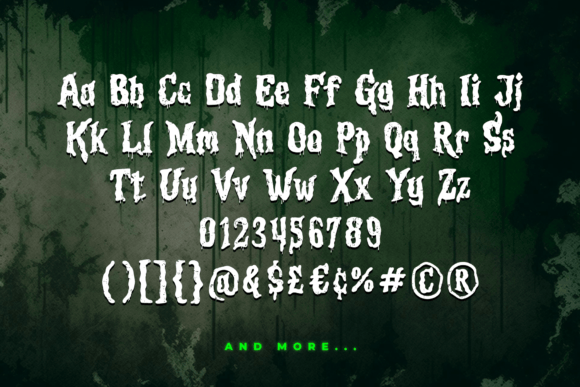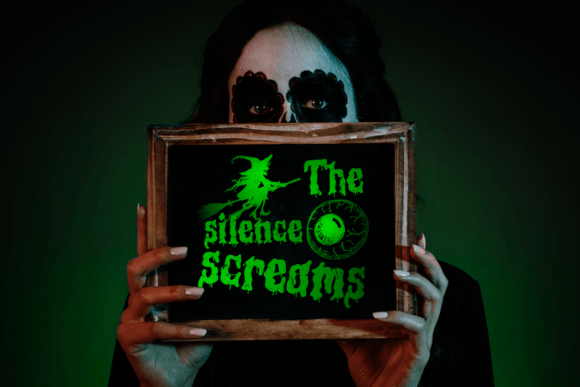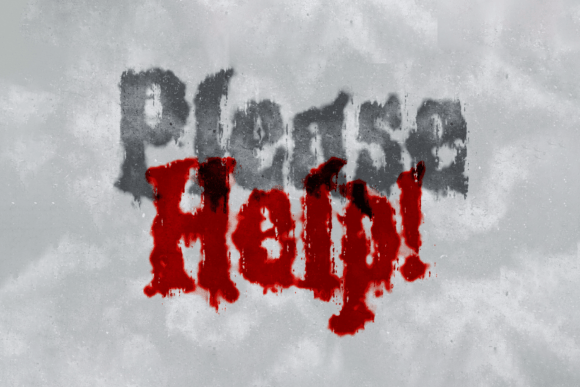
Introducing Gortem Font: The Ultimate Horror Experience for Designers and Crafters
Are you a designer or crafter looking for a font that will send shivers down the spine of your audience? Look no further than Gortem Font, a chilling handwritten font that is perfect for horror-themed designs. With its eerie, dripping letters, Gortem adds a haunting touch to your text that is sure to leave a lasting impression.
The Essence of Fear: What Makes Gortem Font So Unique?
Gortem Font captures the essence of fear with every stroke, making it an ideal choice for spooky invitations, mysterious signage, and bone-chilling Halloween projects. Each letter is carefully crafted to resemble dripping blood or a ghostly whisper, giving your text a haunting quality that is sure to terrify.
Whether you’re designing a haunted house invitation, a spooky flyer, or a creepy poster, Gortem Font is the perfect choice. Its unique and eerie style will add a level of terror to your design that will leave your audience shivering in fear.
Unleash the Terror: How to Use Gortem Font in Your Designs
Here are a few ideas for using Gortem Font in your designs:
- Create a spooky invitation for a Halloween party or haunted house event.
- Design a creepy poster for a horror movie or haunted attraction.
- Make a mysterious sign for a haunted location or spooky landmark.
- Develop a bone-chilling logo for a horror-themed business or product.
The Benefits of Using Gortem Font in Your Designs
There are many benefits to using Gortem Font in your designs. Here are a few:
- Unique and eye-catching: Gortem Font is a one-of-a-kind font that will add a unique and eye-catching element to your designs.
- Perfect for horror-themed designs: Gortem Font is specifically designed for horror-themed designs, making it the perfect choice for spooky invitations, creepy posters, and haunted house signs.
- High-quality: Gortem Font is a high-quality font that is designed to look great in a variety of sizes and resolutions.
Tips and Tricks for Getting the Most Out of Gortem Font
Here are a few tips and tricks for getting the most out of Gortem Font:
- Experiment with different colors: Gortem Font looks great in a variety of colors, from blood red to ghostly white. Experiment with different colors to find the one that works best for your design.
- Use it sparingly: Gortem Font is a bold and eye-catching font, so use it sparingly to add emphasis to your design.
- Combine it with other fonts: Gortem Font looks great when combined with other fonts. Try pairing it with a sans-serif font for a bold and eye-catching look.
| Author | FG Studios |
If you’re looking for a font that will add a haunting touch to your designs, look no further than Gortem Font. With its eerie, dripping letters, Gortem Font is perfect for horror-themed designs, spooky invitations, and bone-chilling Halloween projects. Download Gortem Font today and unleash the terror in your designs!